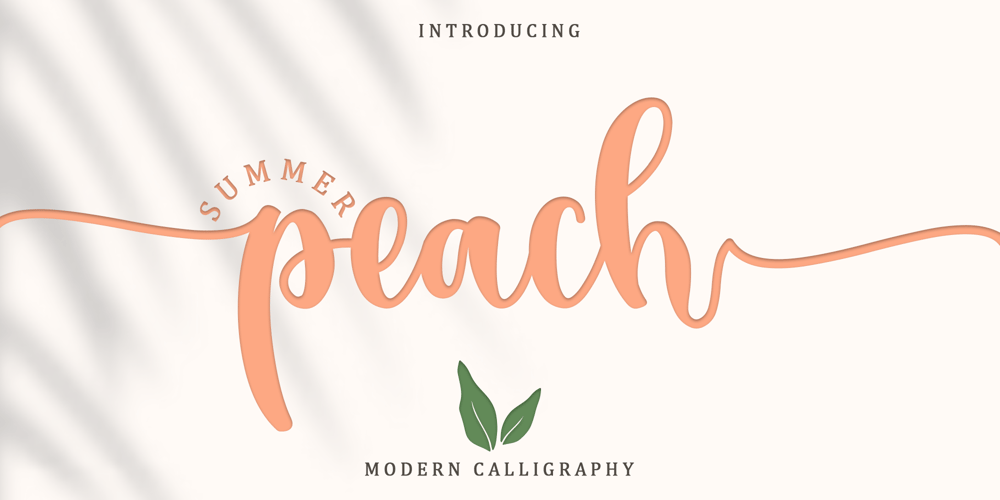
Summer Peach
Summer Peach font
Summer Peach Font Family was designed by Alif Ryan Zulfikar and published by Sakha Design. Summer Peach contains 2 styles and family package options. Summer Peach is a dazzling script font. This font is neatly crafted and highly detailed. Whatever the topic, this font will be a wonderful asset to your font library, as it has the potential to enhance any creation.This font is PUA encoded which means you can access all glyphs and swashes with ease!